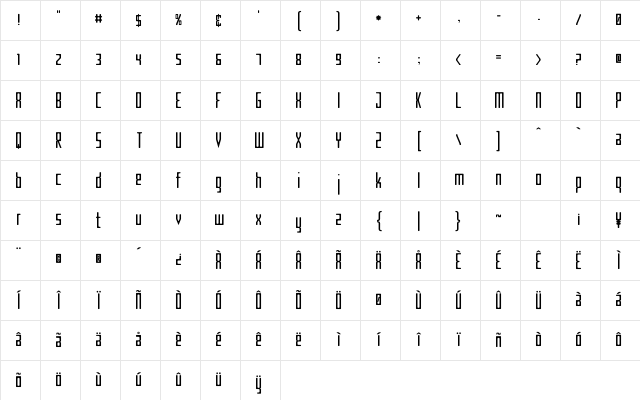
Criminal Narrow
Style: Narrow
Criminal Narrow
Design Context for Criminal
Criminal is a composed and adaptable typeface that performs quietly and consistently across a wide range of design contexts. Its narrow stance lets it pack a punch even in space-constrained designs.